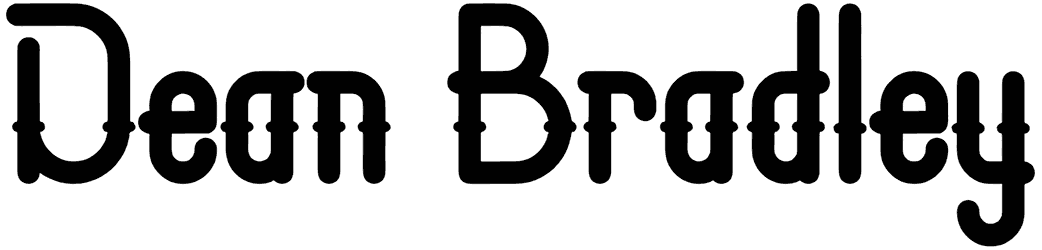
Sneakout Font
Today’s retro font is designed with digital and smart characters. Sneakout has a character set that when lined up in a phrase or sentence will showcase a neat look to you. This 50s diner font can be used to write gaming texts, movie titles, shop flyers, retro albums, and advertisements. This font only supports major punctuational characters.
Designed by: Elephant Shape